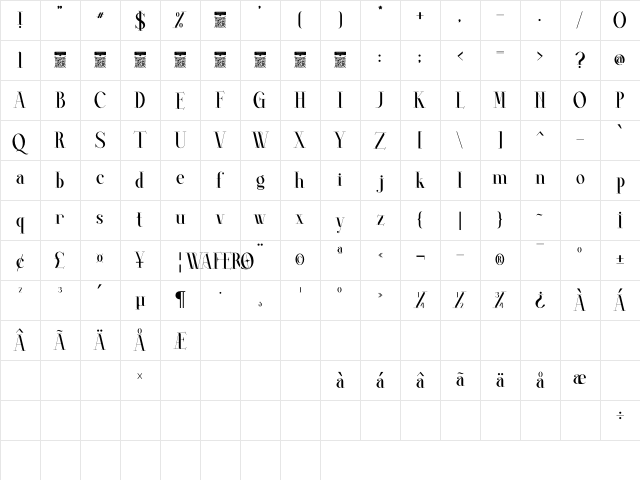
Complete WAFERO Personal Use Regular glyph index. Displaying only characters natively supported by WAFERO Personal Use Regular font.
WAFERO Personal Use is a composed and adaptable typeface that performs quietly and consistently across a wide range of design contexts.